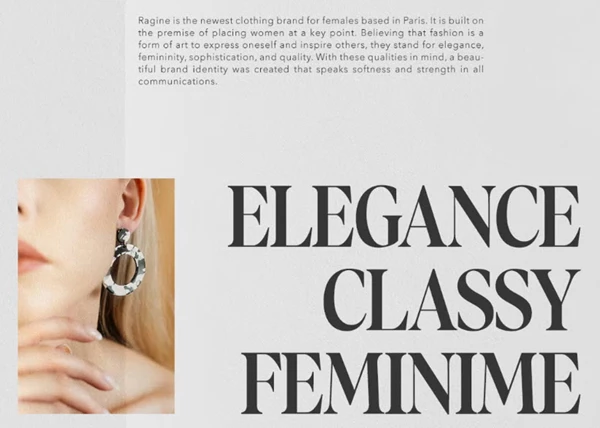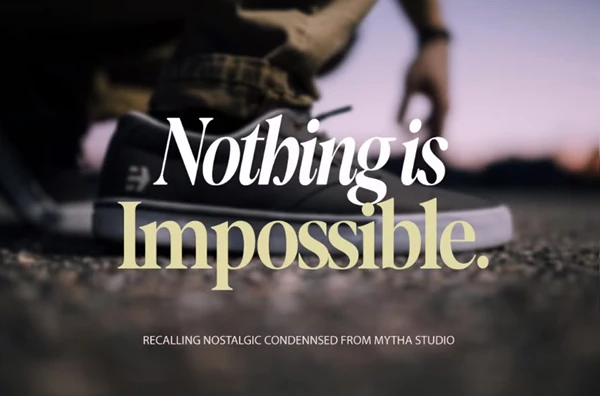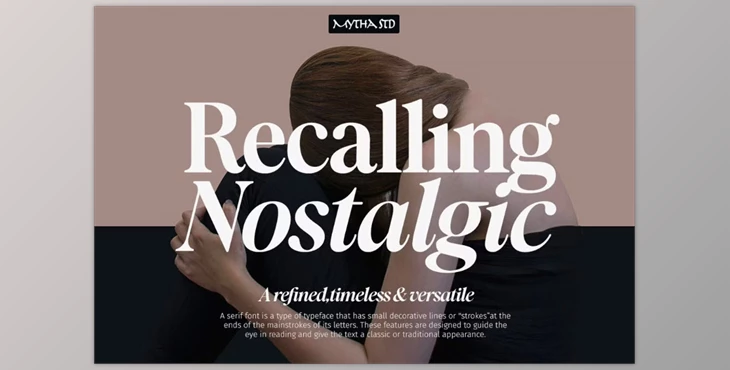
Recalling Nostalgic Font:
Recalling Nostalgic is a serif typeface that has old design features with a modern twist. The letters are fluid, with a stable yet simple cut to the eye, and the standard curved extremities render the typeface both familiar and unforgettable. Use this for any project that wants to take someone back in time or transport them to an anticipated era, classically themed editorials, luxury brands, or soft book covers.
Some great features of Recalling Nostalgic Font:
- Seriffed appearance with an old and timeless feel
- Great for headers, editorials, and visual brand identity
- Feels sophisticated and refined
- Evokes a warm, sentimental, and inviting response